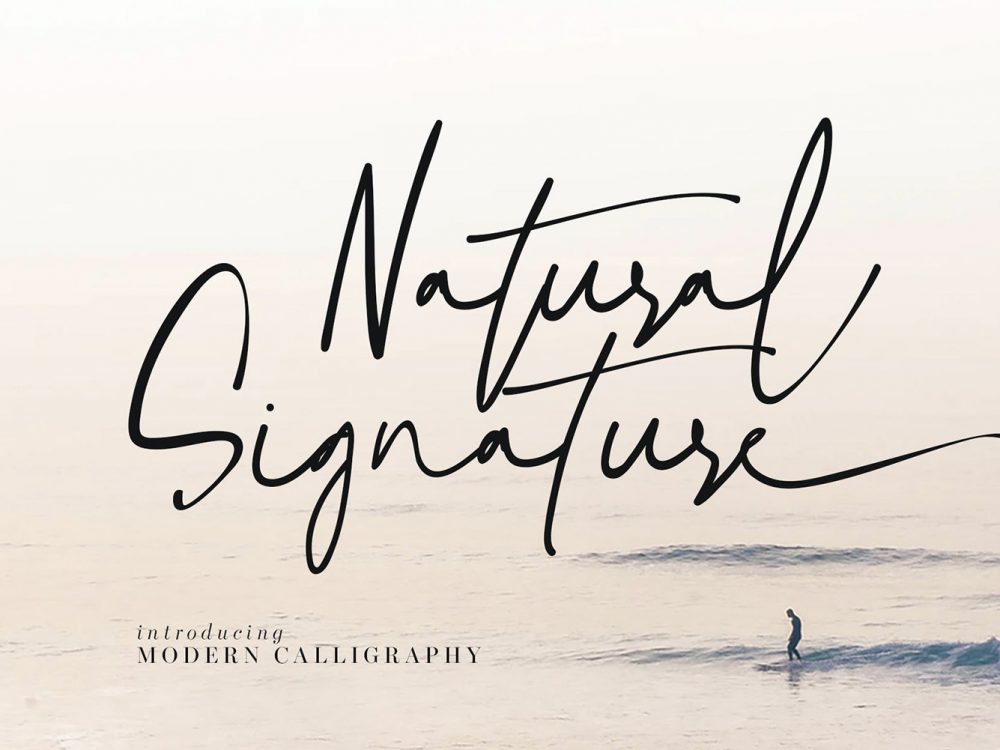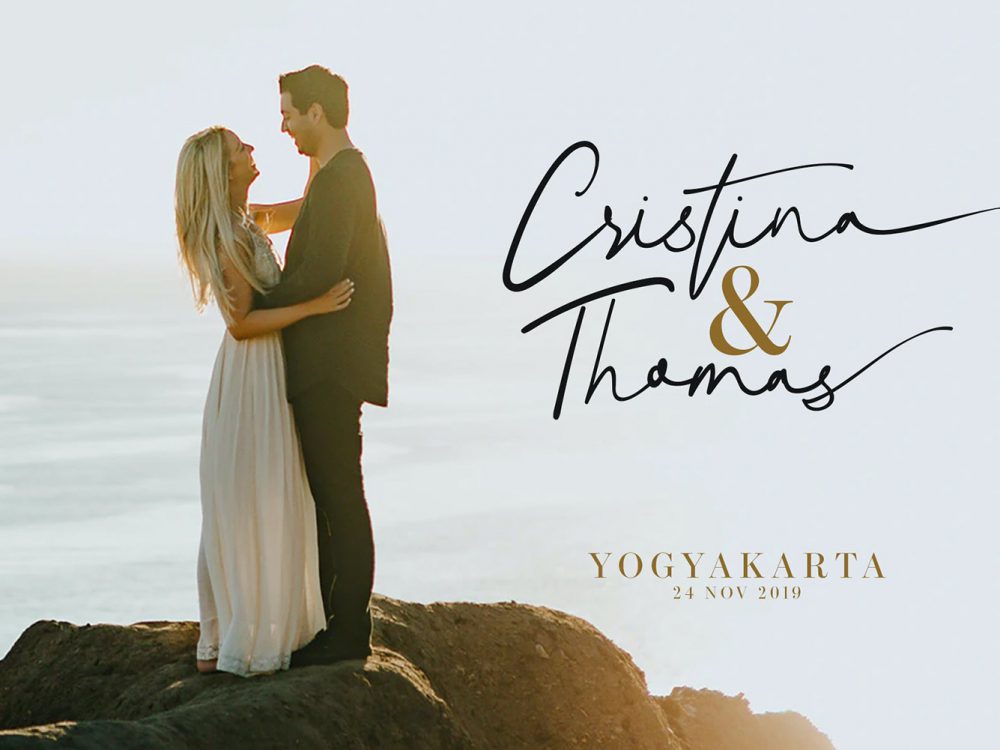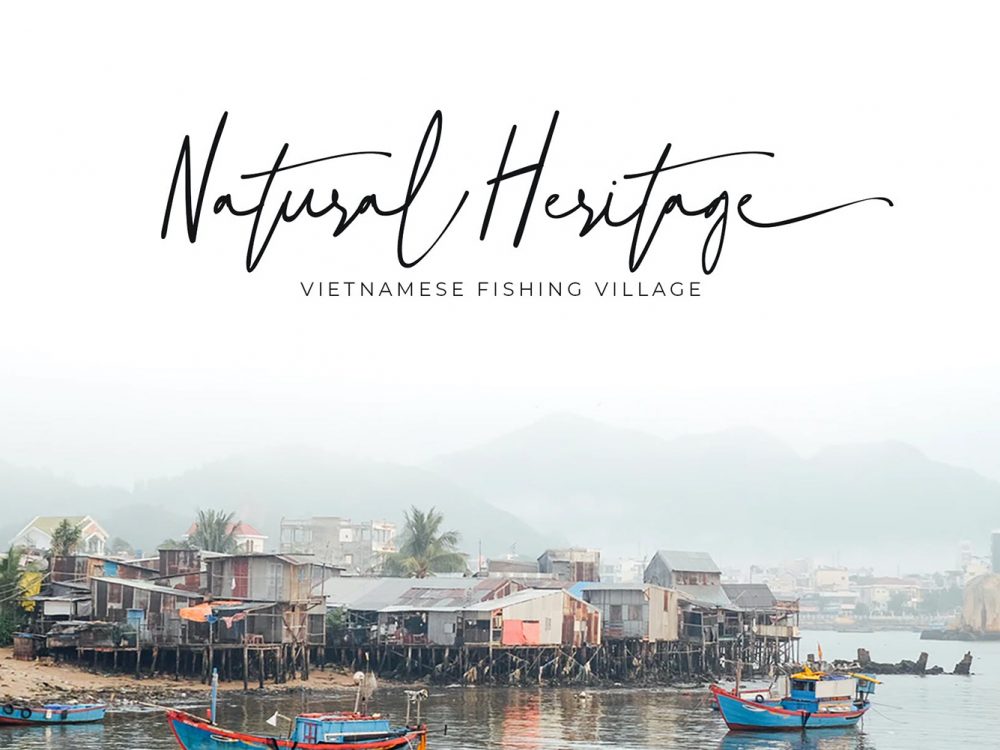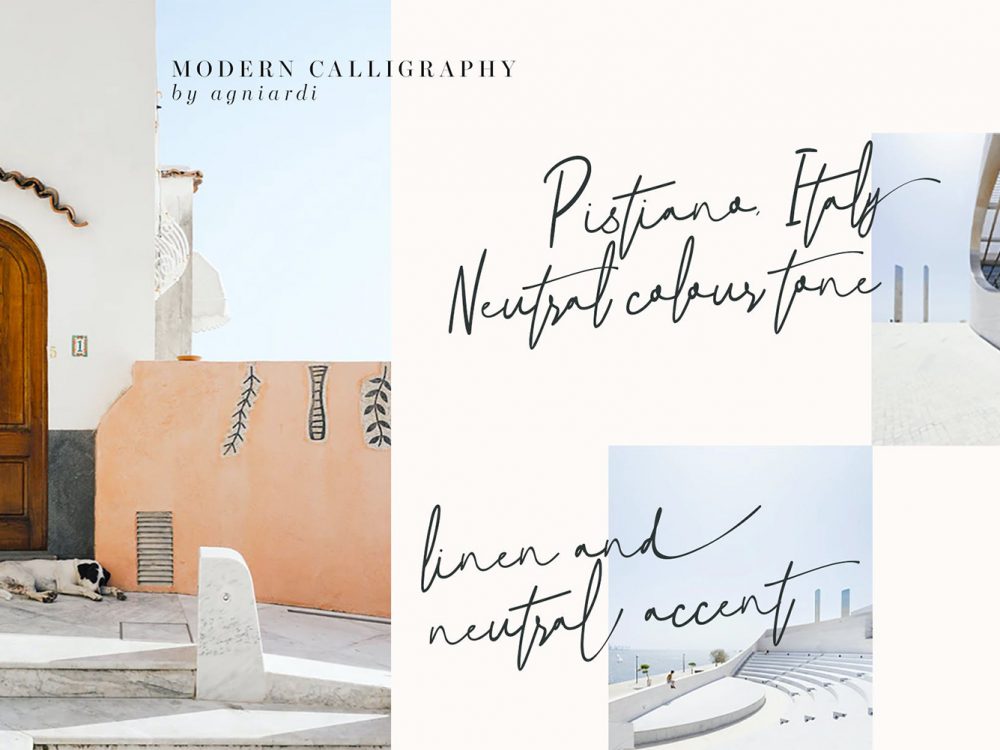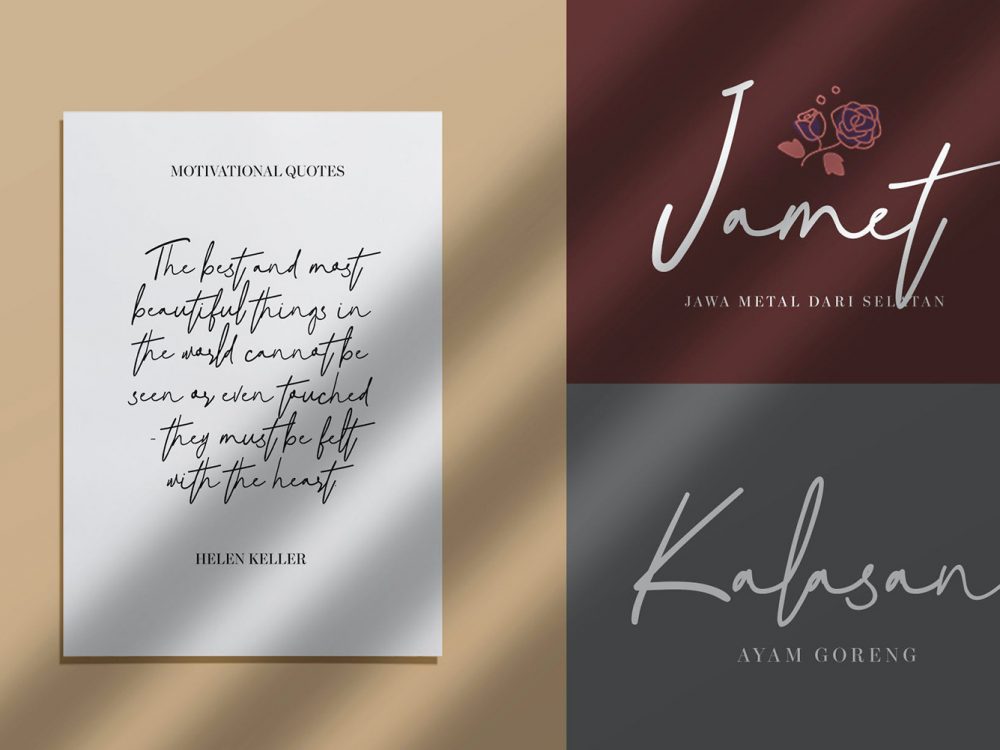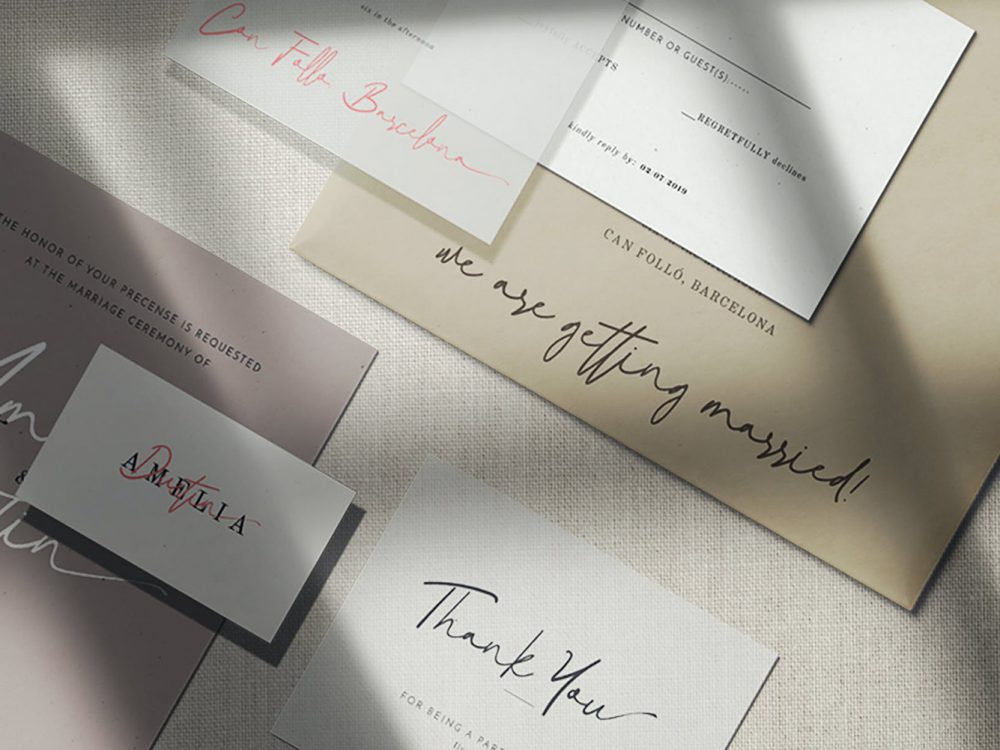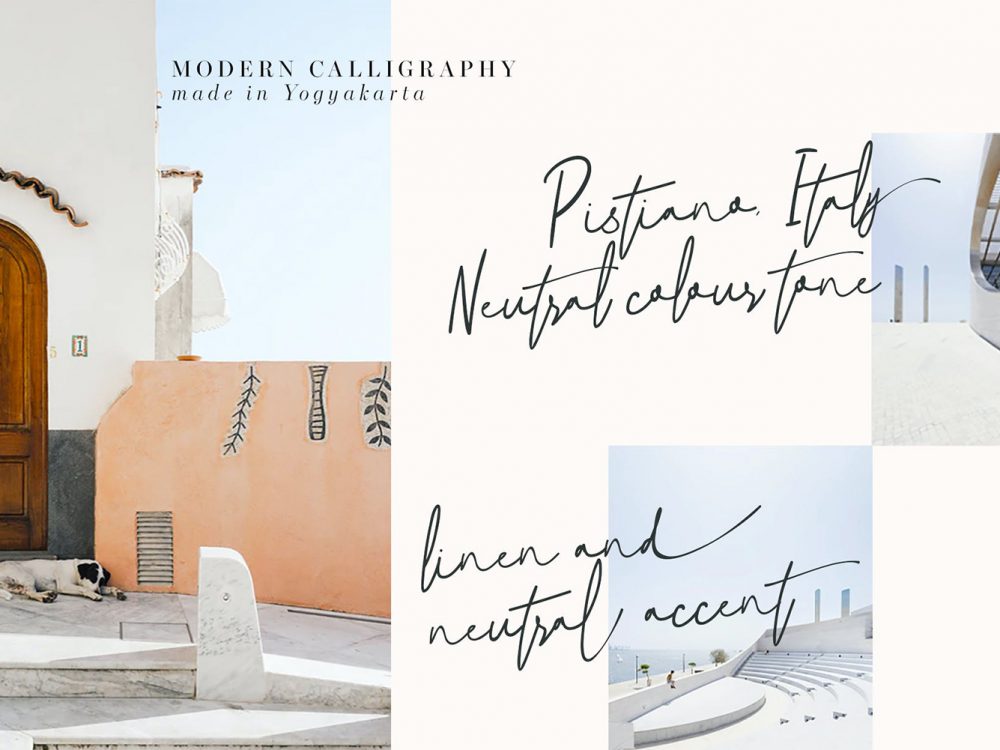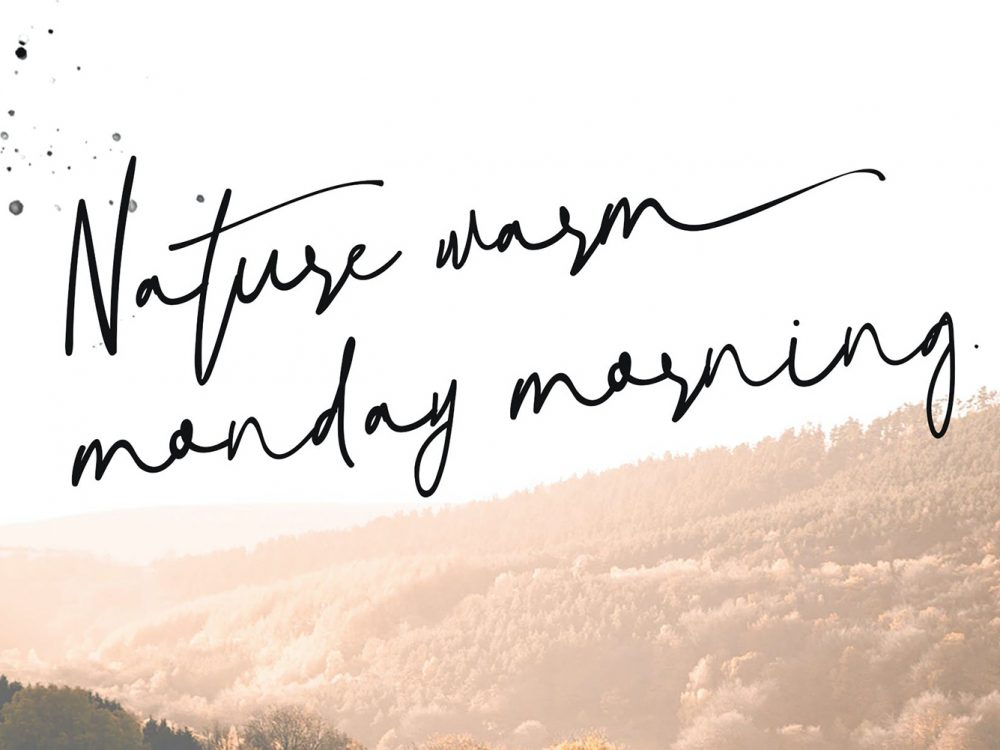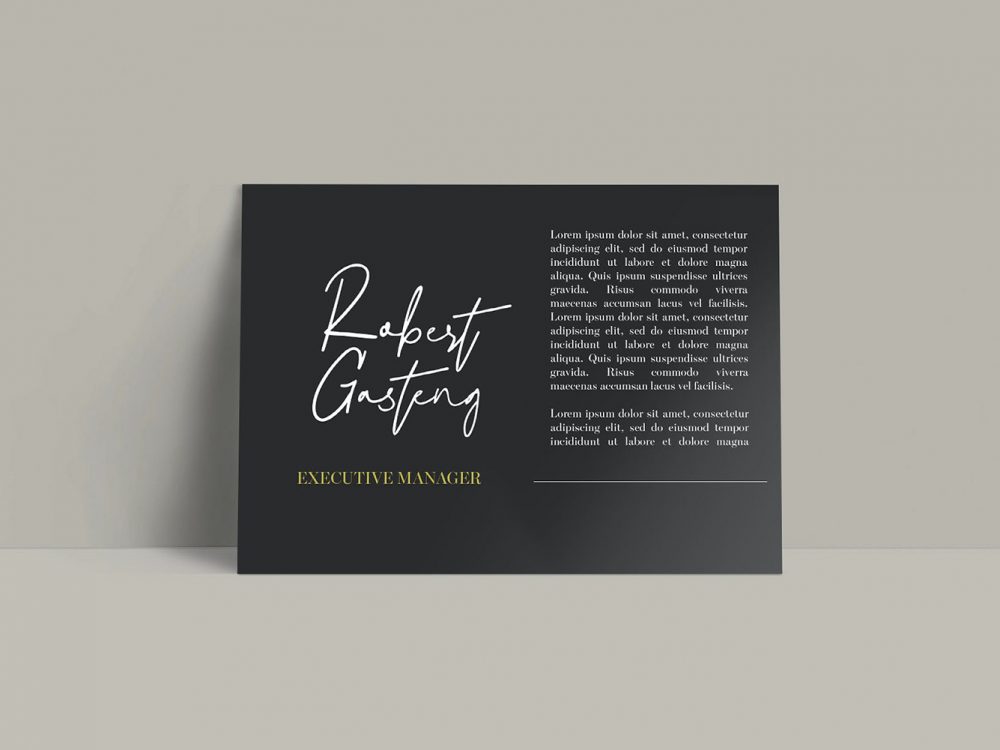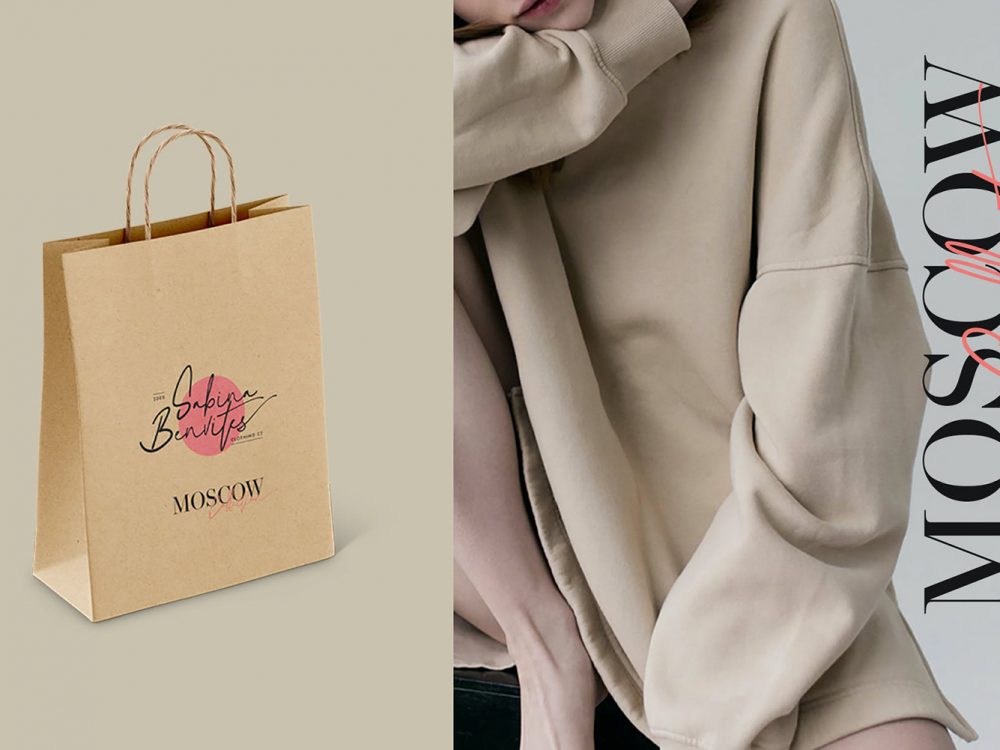
Free Natural Signature Script Font
Free Natural Signature Script Font is a handwritten script font that sets itself apart from other fonts with its elegant calligraphic style. This font will help you create unique design projects, your own corporate identity and improve your professional level. Use this font to create memorable posters, wedding invitations, cards, branding, flyers, and more. Improve the quality of your design projects using this font. This is a demo font that comes for a personal license, buy the premium version for more features.